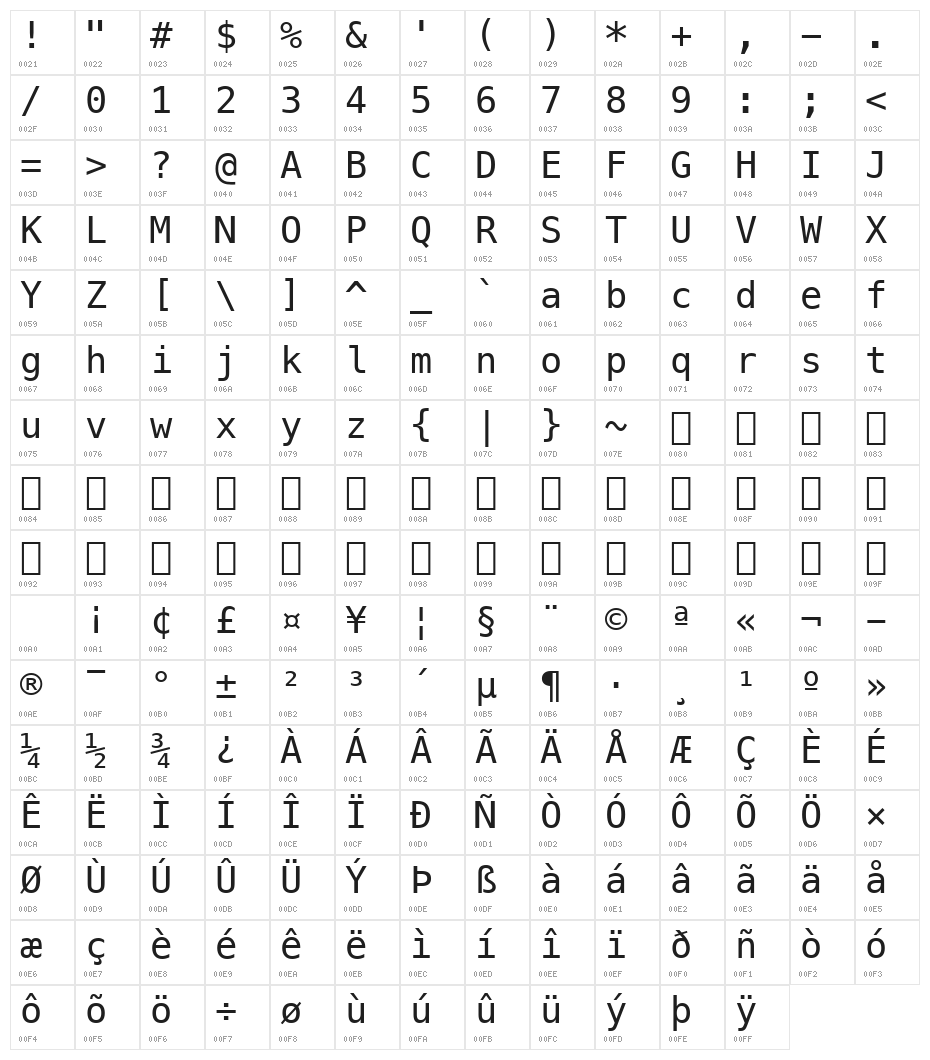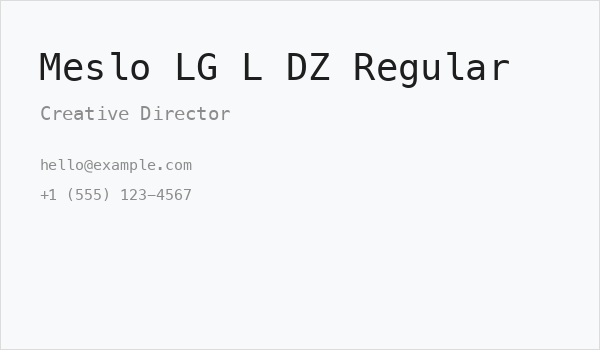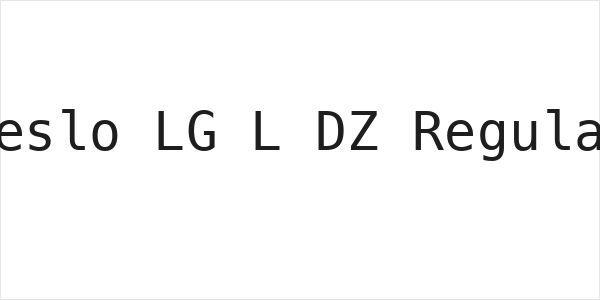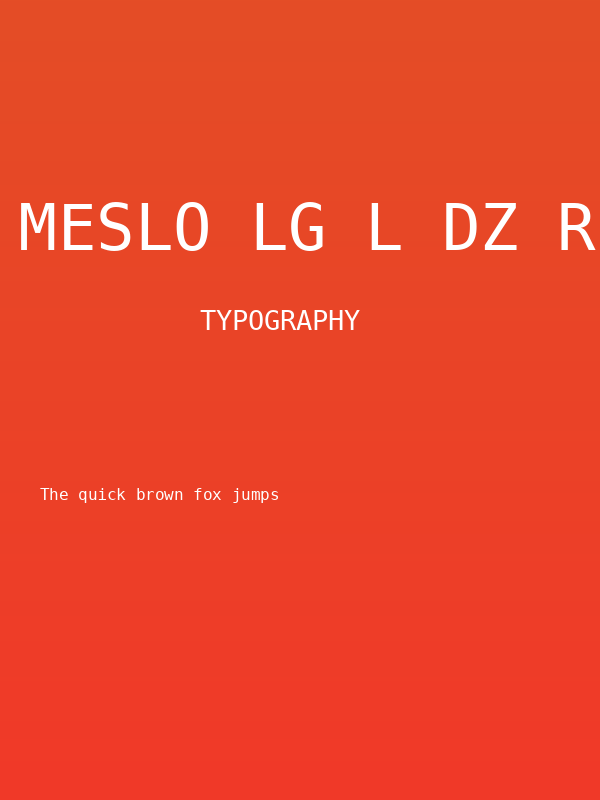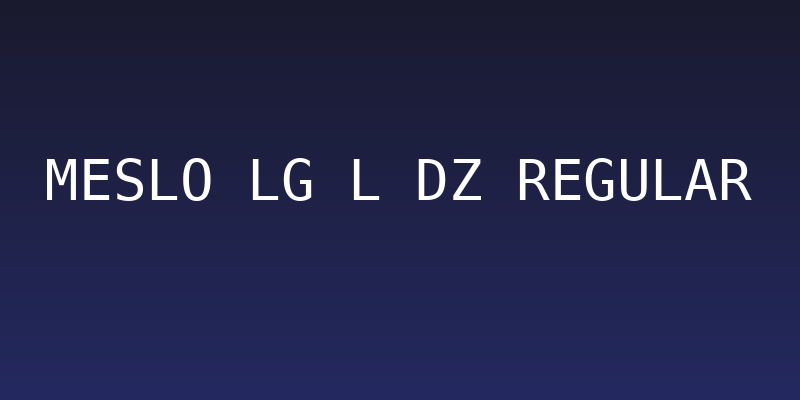
Meslo LG L DZ Regular Font
Meslo LG L DZ Regular Description
This font features a clean, monospaced design that is ideal for coding and technical documentation. Each character is evenly spaced, providing a uniform appearance that enhances readability. The font includes a full set of uppercase and lowercase letters, numerals, and a variety of special characters. Its simple and straightforward style makes it highly legible, even at smaller sizes. The strokes are consistent in weight, offering a balanced and professional look. This font is particularly well-suited for environments where clarity and precision are paramount.
Use CaseCode editors, technical documentation, terminal displays.
Proposed ProjectsPerfect for use in code editors, technical manuals, and any project requiring a monospaced typeface.